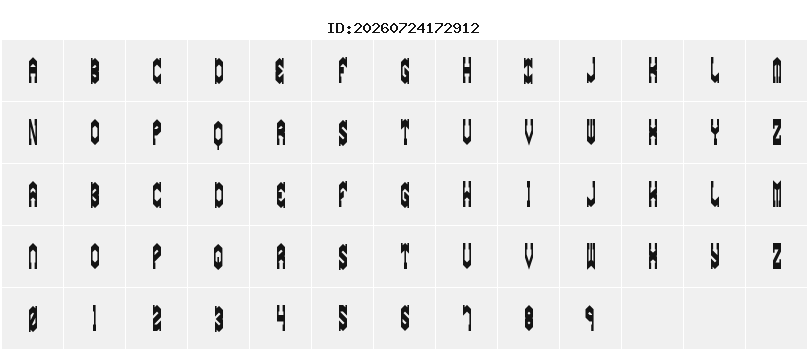
Gyrose Squeeze BRK Preview
• Font Name: Gyrose Squeeze BRK
• Full Font Name: Gyrose Squeeze BRK
About Gyrose Squeeze BRK.ttf
Gyrose Squeeze BRK.ttf is a modern, elegant sans-serif font designed for ultimate readability and visual harmony. Perfect for branding, headlines, web design, and print materials.